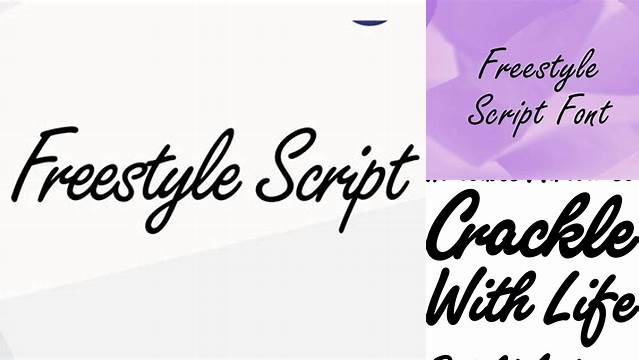
Free Freestyle Script Fonts: Regular Style Downloads
Hey guys! Looking to add a touch of elegance and personality to your projects? You've come to the right place! We're diving deep into the world of free freestyle script fonts, specifically focusing on the regular style. This font style is incredibly versatile, perfect for everything from invitations and logos to social media graphics and website headers. Think of it as your secret weapon for adding a handwritten, yet polished, feel to your designs. So, let's get started and explore the amazing possibilities these fonts offer!
What is a Freestyle Script Font?
Before we jump into the specifics of regular styles and where to find them, let's quickly define what we mean by "freestyle script font." Essentially, these fonts mimic the fluidity and spontaneity of handwriting. They often feature connected letters, varying stroke widths, and a generally informal and approachable aesthetic. The beauty of a freestyle script font lies in its ability to convey a sense of personal touch and creativity, making it ideal for projects where you want to stand out from the crowd. The handwritten feel can add a layer of authenticity and charm that more traditional fonts might lack. Plus, there's a huge variety within the freestyle script category itself, ranging from elegant and flowing to bold and playful, so you're sure to find something that fits your vision.
Why Choose a Regular Style?
Now, why are we specifically focusing on the regular style of these fonts? Well, regular styles strike a perfect balance. They're not too bold, not too light, making them incredibly legible and adaptable to a wide range of design applications. Think of it as the Goldilocks of font weights – just right! A regular style font freestyle script is easy on the eyes, whether you're using it for body text, headlines, or even smaller details in your design. This versatility makes it a fantastic choice for projects where readability is key, without sacrificing the aesthetic appeal of a script font. You can use it confidently across different platforms and media, knowing it will maintain its clarity and impact.
Another excellent resource is Font Squirrel. This website is known for its curated selection of high-quality, free fonts that are licensed for commercial use. Font Squirrel is very particular about the fonts they feature, ensuring that everything is top-notch. They have a great selection of font freestyle script regular free options, and their search filters are incredibly helpful. You can filter by classification, tags, and even specific features like ligatures or alternate characters. They also offer a handy "Font Identifier" tool, which lets you upload an image of a font and try to identify it – super useful if you've seen a font you like but don't know its name. Font Squirrel is a fantastic choice for designers who need reliable, commercially usable fonts without breaking the bank.
DaFont is a classic in the free font community. It's a massive repository with a vast collection of fonts, including a wide array of freestyle script options. DaFont's interface is a bit more old-school, but the sheer volume of fonts available makes it a worthwhile resource. Be sure to pay close attention to the licensing information for each font, as they vary widely. Some fonts are free for personal use only, while others are completely free for commercial use. DaFont's categorization system is quite detailed, making it easier to browse through specific styles and themes. You can also preview fonts with your own text, giving you a better idea of how they'll look in your projects.
Creative Fabrica (Freebies Section)
While Creative Fabrica is primarily a subscription-based service, they also have a fantastic freebies section that's worth checking out. They often offer free freestyle script regular fonts as part of their promotional deals, so it's a great way to snag some premium fonts without spending a dime. The freebies change regularly, so it's worth checking back often to see what's new. Creative Fabrica's fonts are generally high-quality and come with commercial licenses, making them a safe bet for professional projects. Plus, they often have bundles and collections of fonts that are heavily discounted, providing even more value for your money.
Conclusion: Embracing the Elegance of Free Freestyle Script Regular Fonts
Alright, guys, we've reached the end of our deep dive into the world of free freestyle script regular fonts. We've covered everything from what they are and where to find them, to how to use them effectively and avoid common mistakes. Hopefully, you're feeling inspired and ready to start experimenting with these beautiful fonts in your own designs. Remember, a font freestyle script regular can add a touch of elegance, personality, and warmth to any project. So, go forth, explore, and create something amazing! Happy designing!